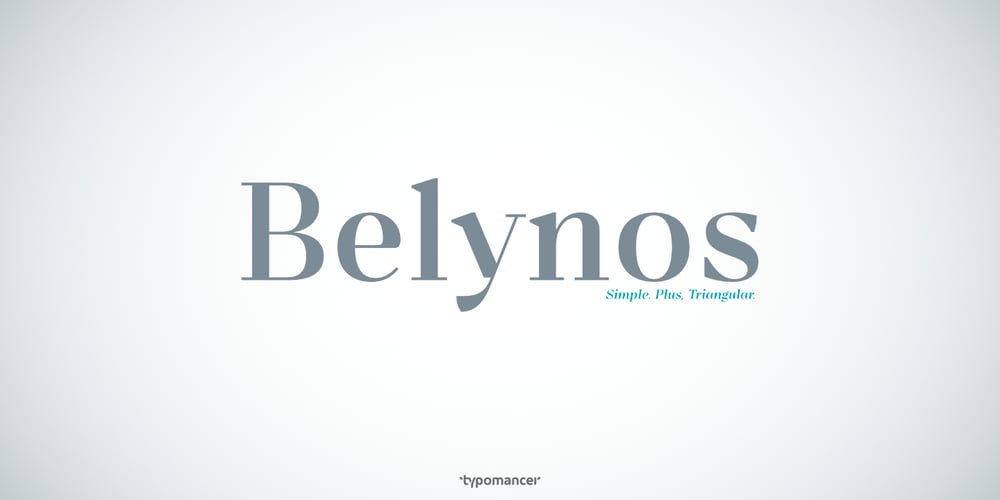
Belynos Font Family was designed by Warit Chaiyakul and published by Typomancer. Belynos contains 10 styles and family package options. Belynos, a simple and elegant didone. Plus a bit of triangular! Font family contains from Light to Black and suitable italic for various designs.